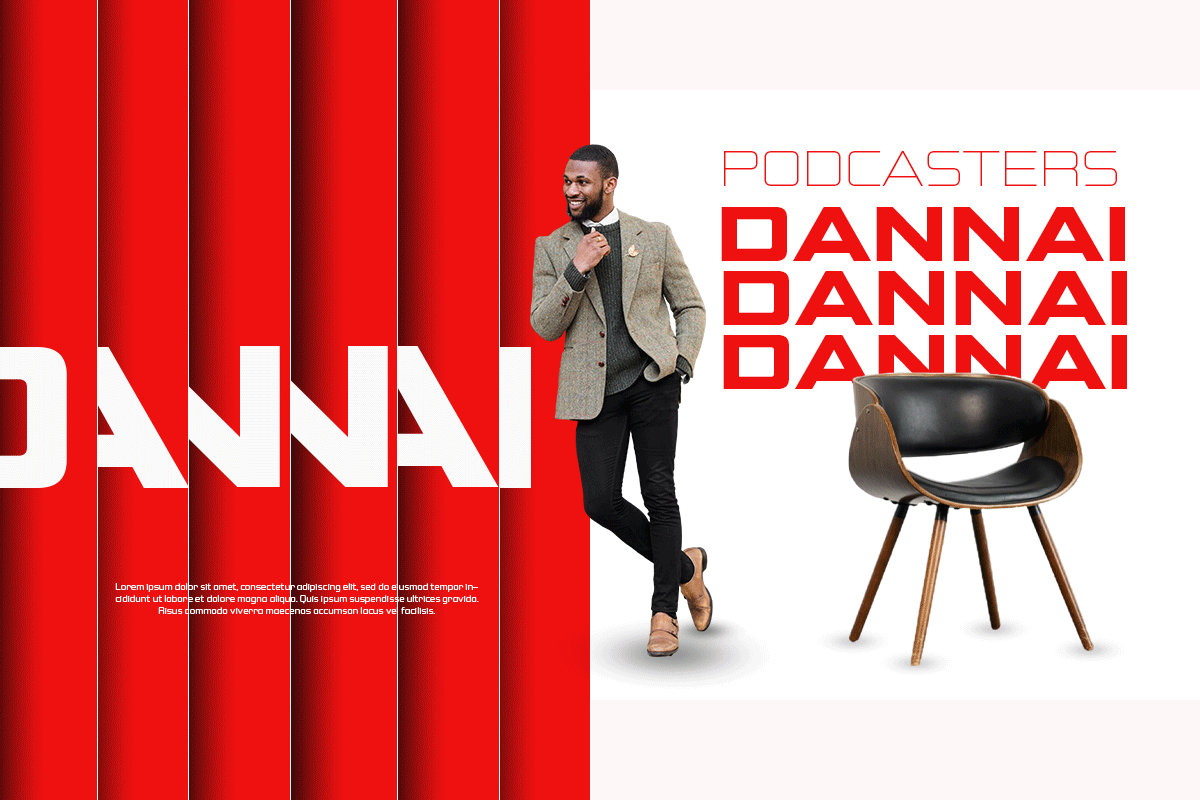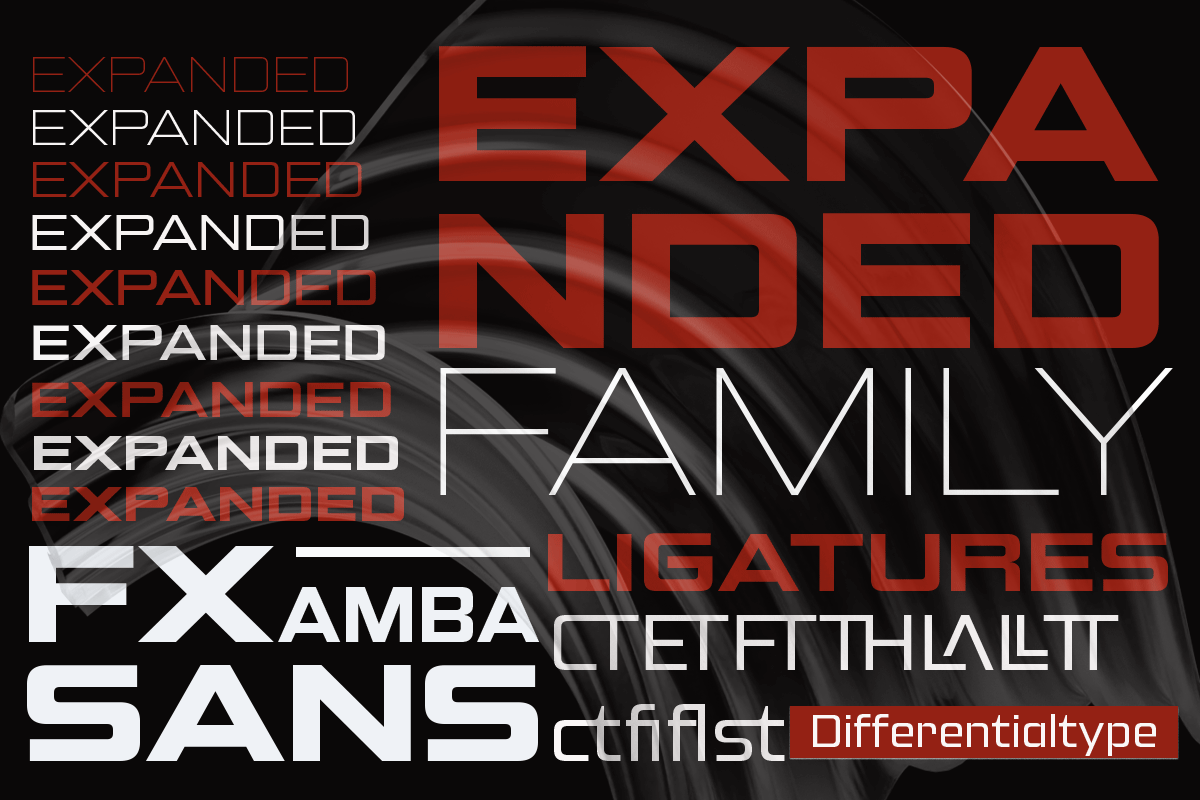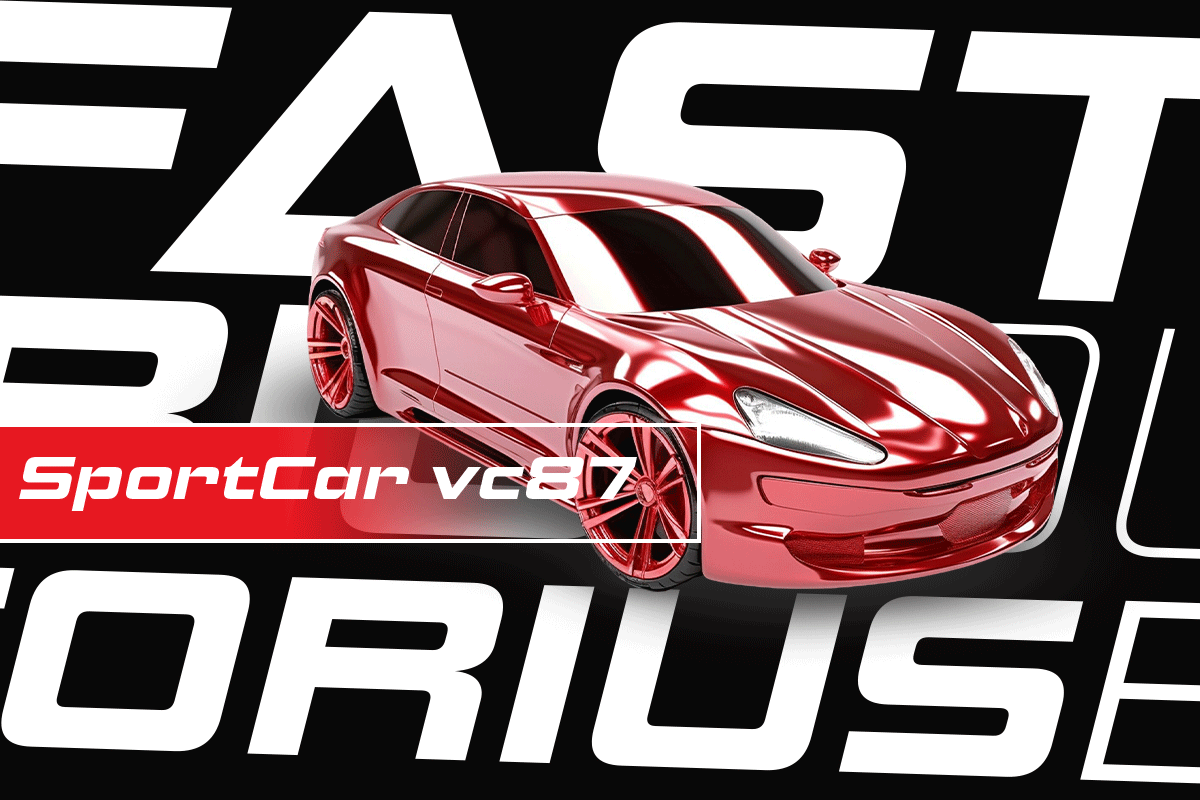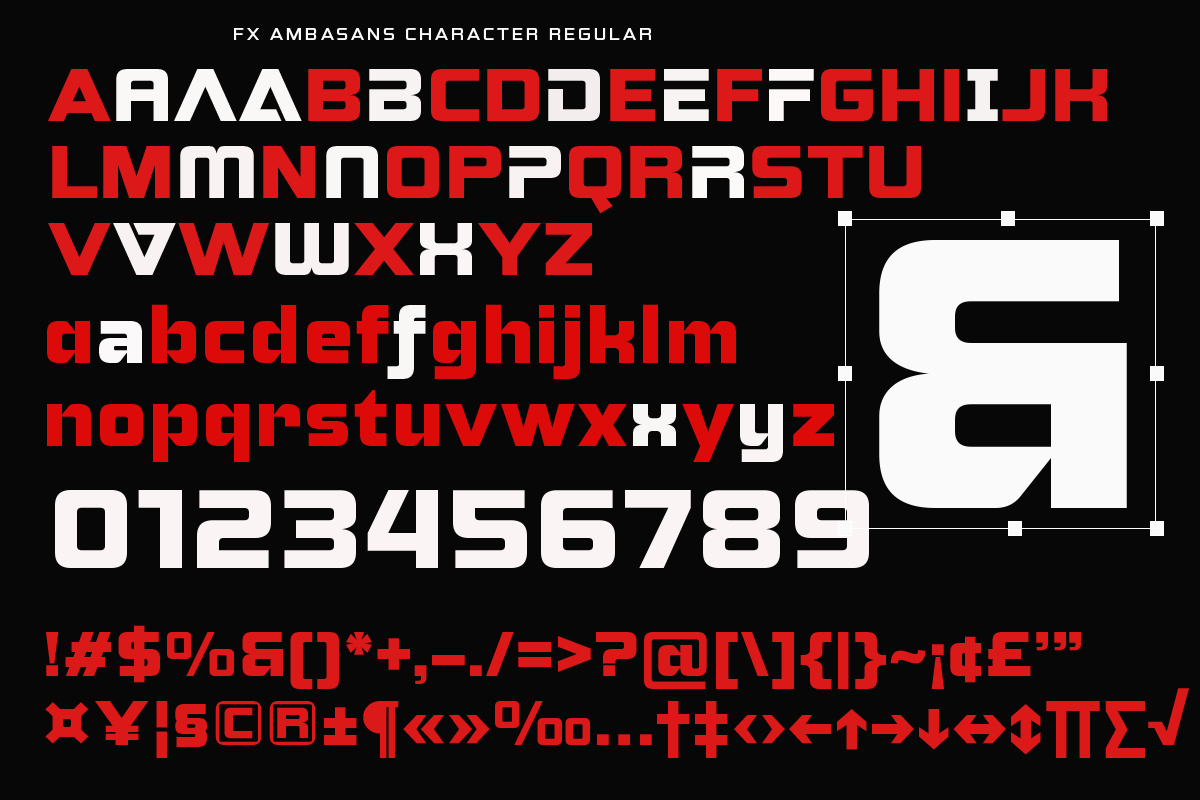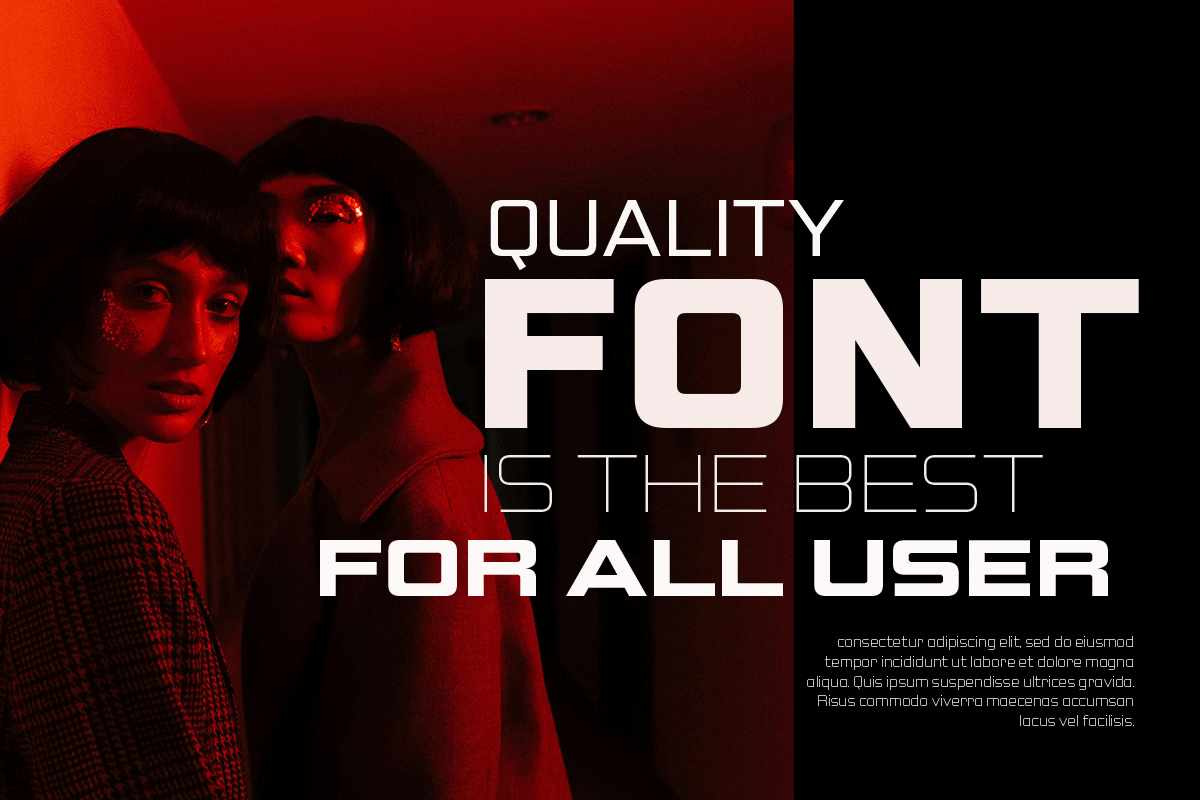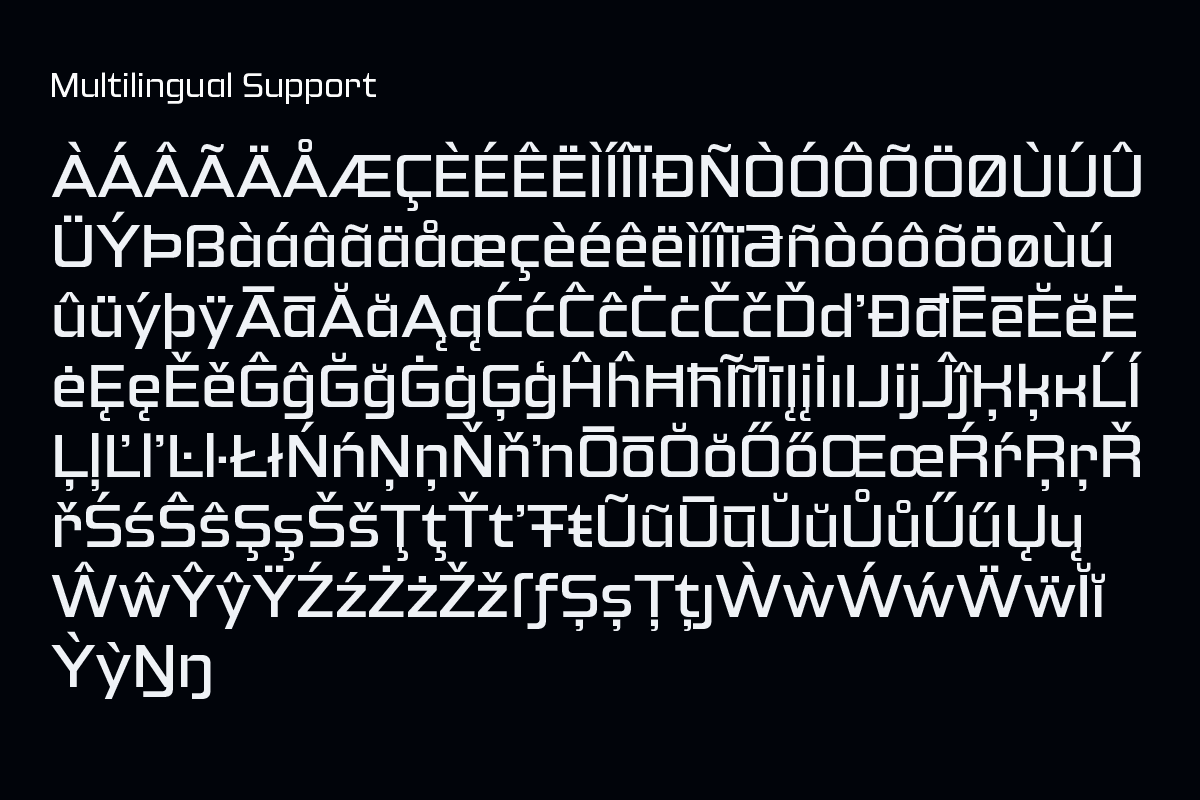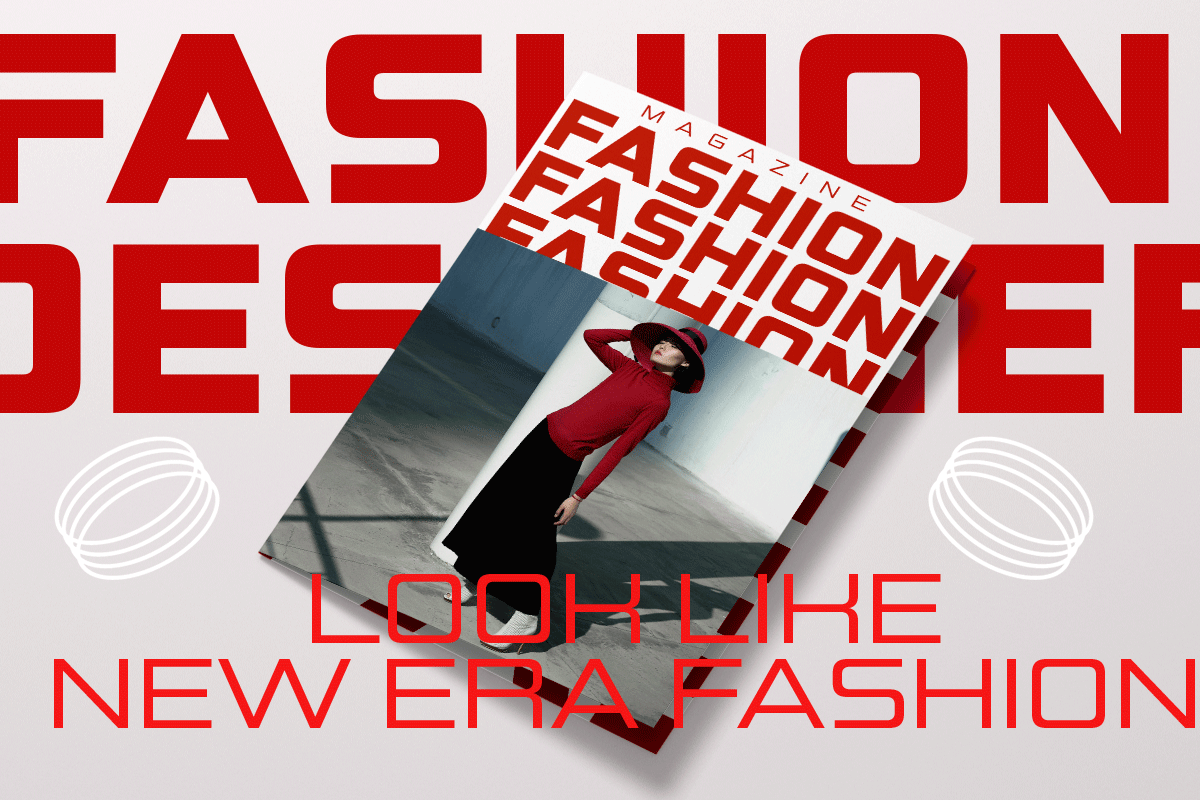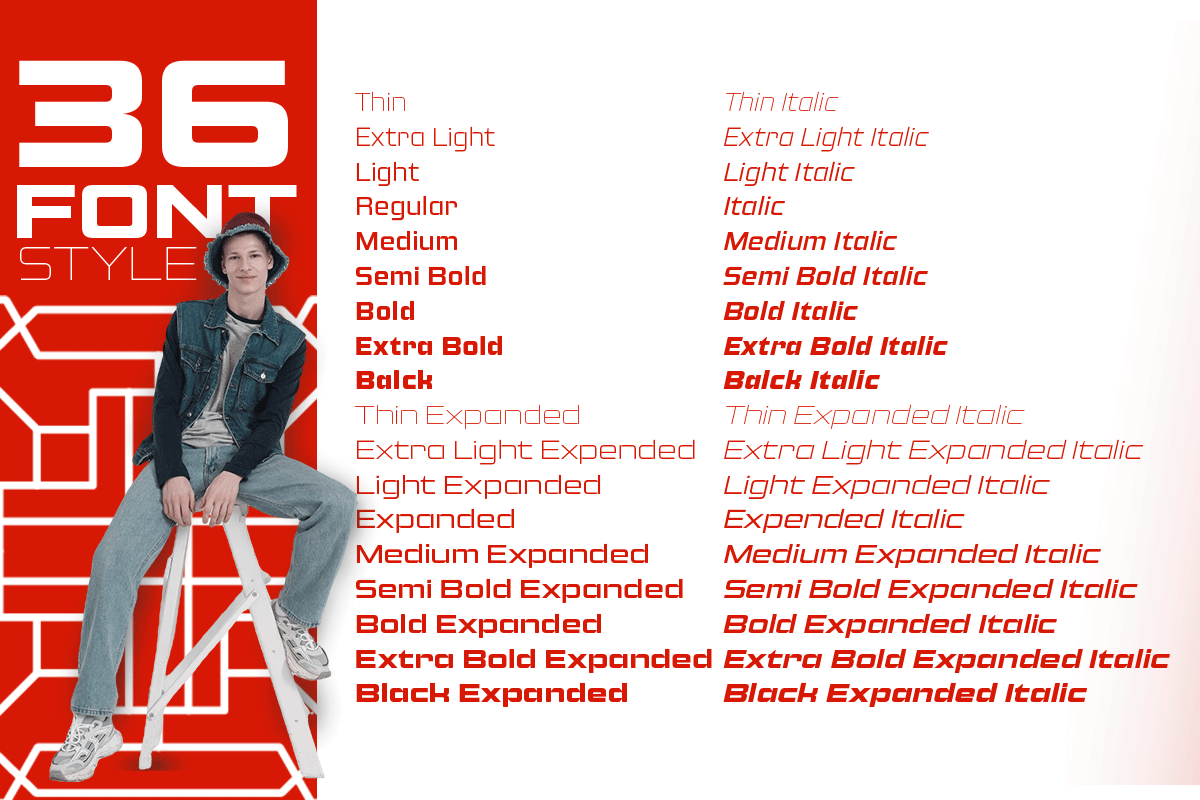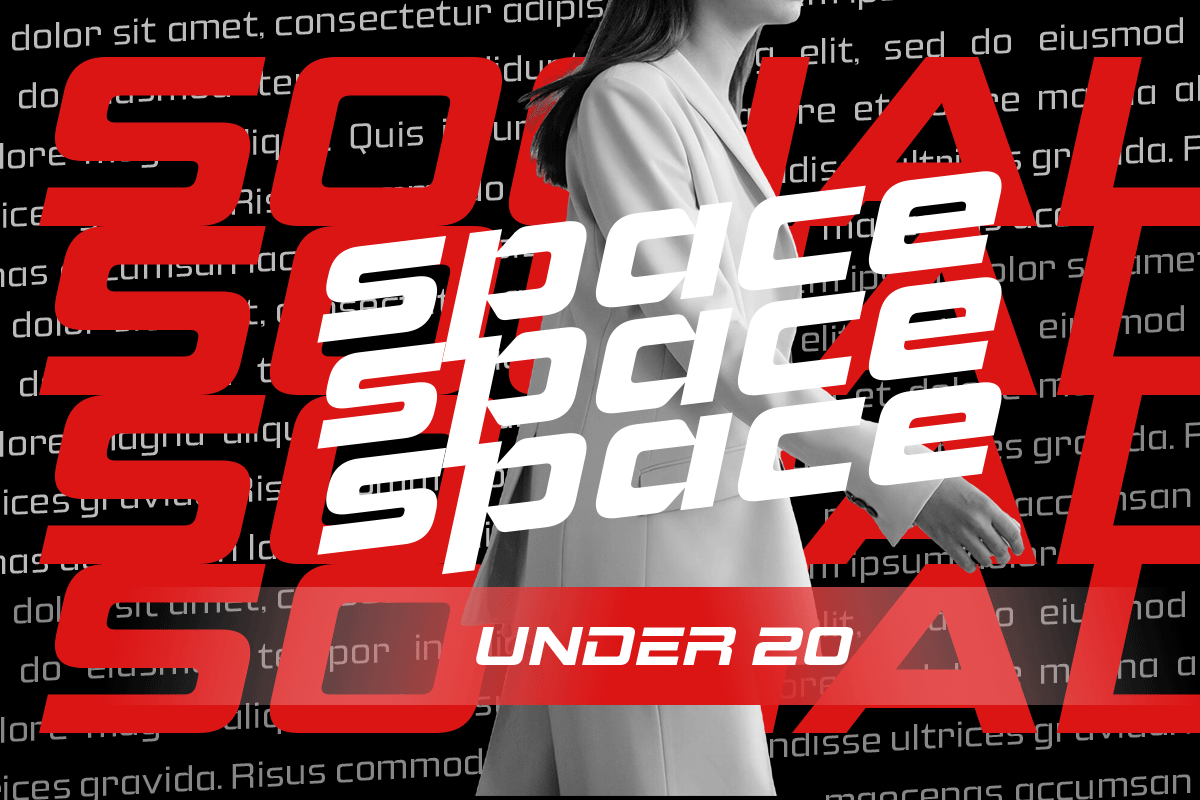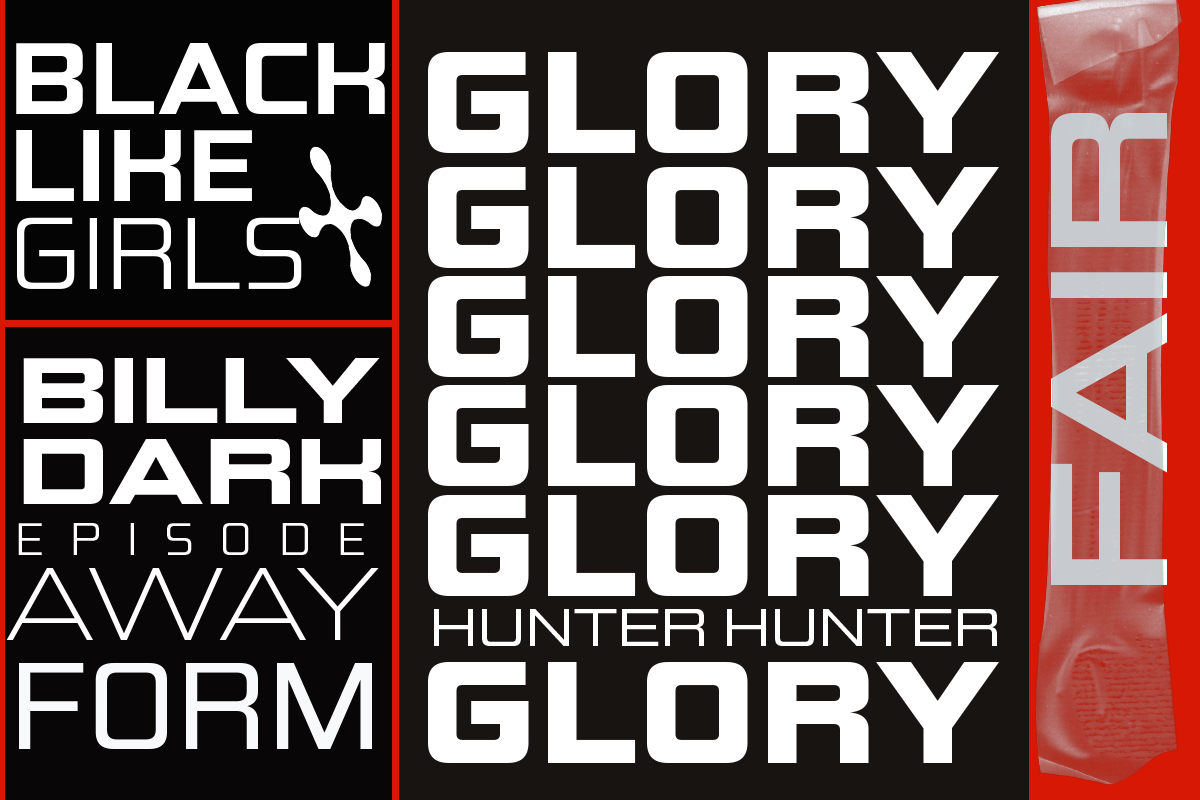
FX Ambasans - Sans Serif Family
Introducing FX Ambasans, a versatile sans serif typeface boasting a range of weights and widths. It embodies a robust, modern aesthetic that leaps from the page, making it an irresistible choice for designs that demand attention. From flamboyantly bold titles to flawlessly legible document content, FX Ambasans seamlessly harmonizes style with readability.
FX Ambasans flourishes in versatility, offering a treasure trove of 36 distinct styles, ready to be utilized separately or interwoven into a singular, cohesive look. FX Ambasans also caters to designers seeking an extra creative flair with its selection of alternative glyphs, amplifying not just your design, but also harnessing the raw power of typography itself.